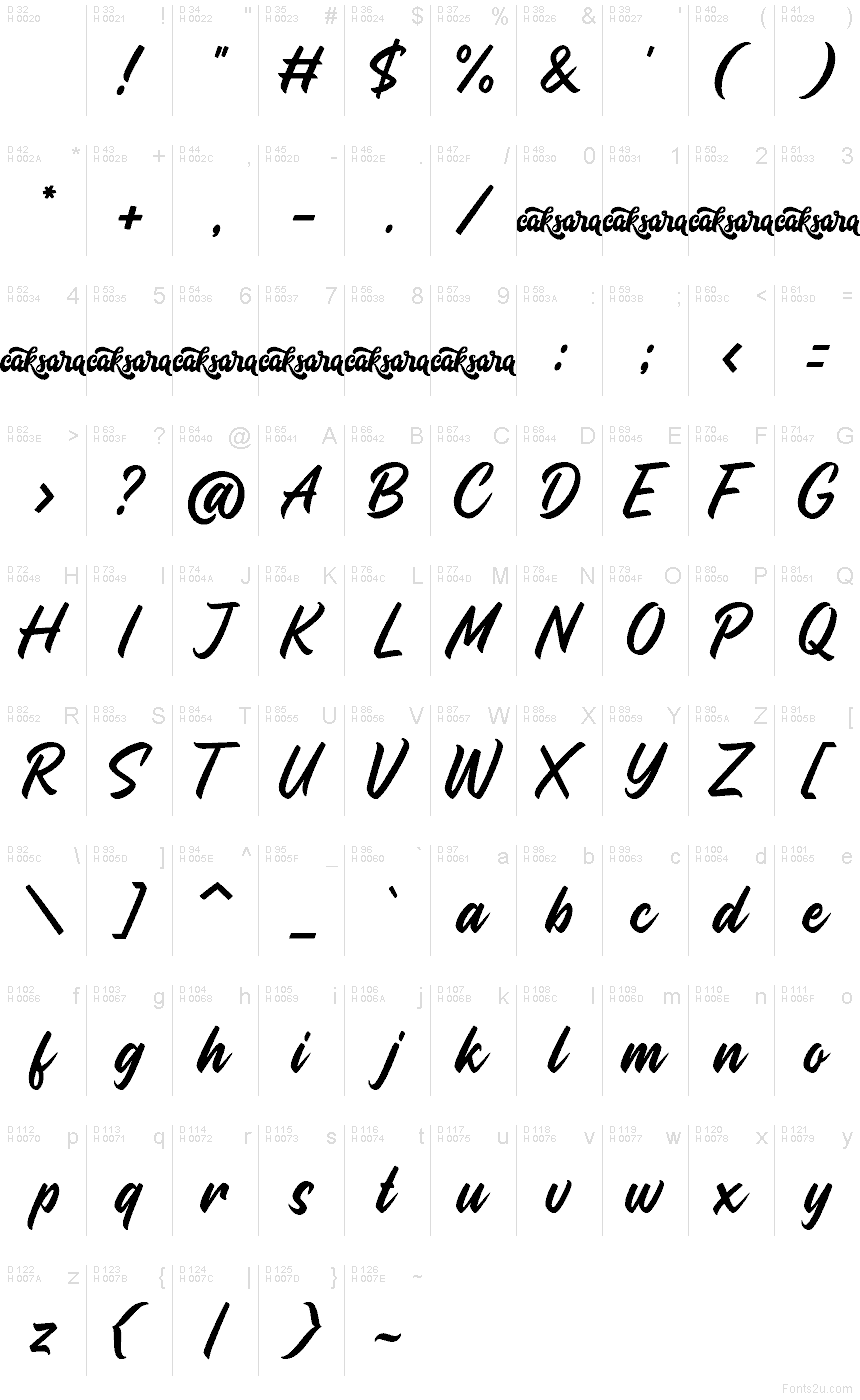
Quadrone-Regular
Quadrone font by Wacaksara Co is a brush typeface with a modern script style. Expressive and effortlessly elegant, the font has an overarching fluidity to its appearance and gives off a casual yet classy impression. Its signature style was inspired by handwriting and calligraphy hence maintaining the natural feel of each character.
Quadrone is perfect for packaging design, stationery design, invitation cards, journals, websites, blogs, social media posts, printed quotes, and poster designs. Some other ideas are branding projects or product design within fashion or adjacent industries. Use it for labels on professional accessories such as cosmetic products or business cards.